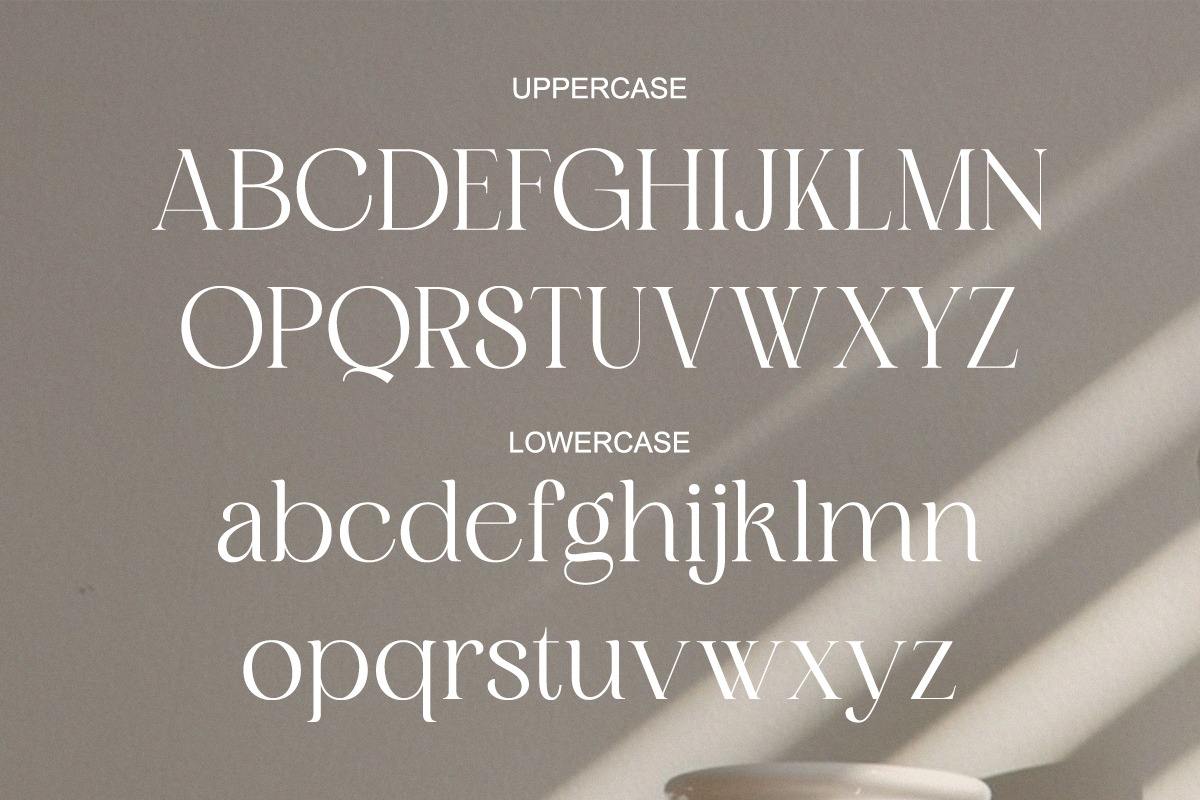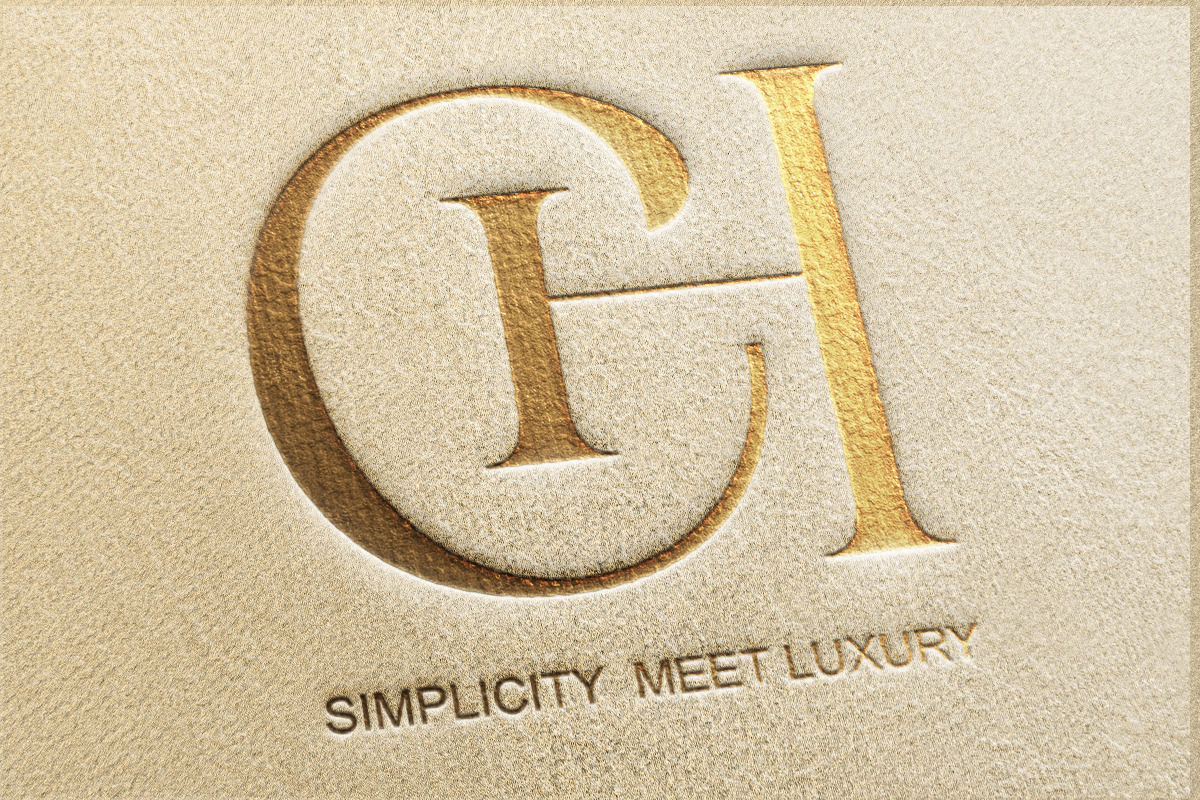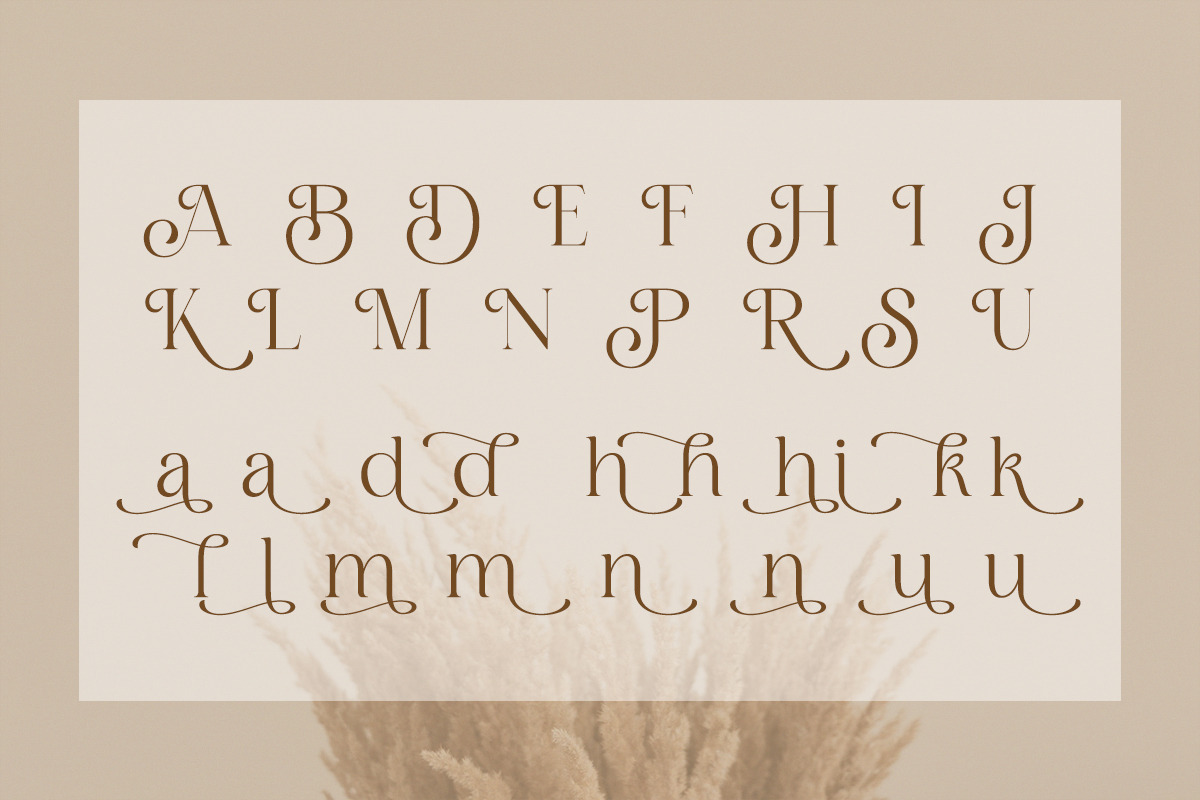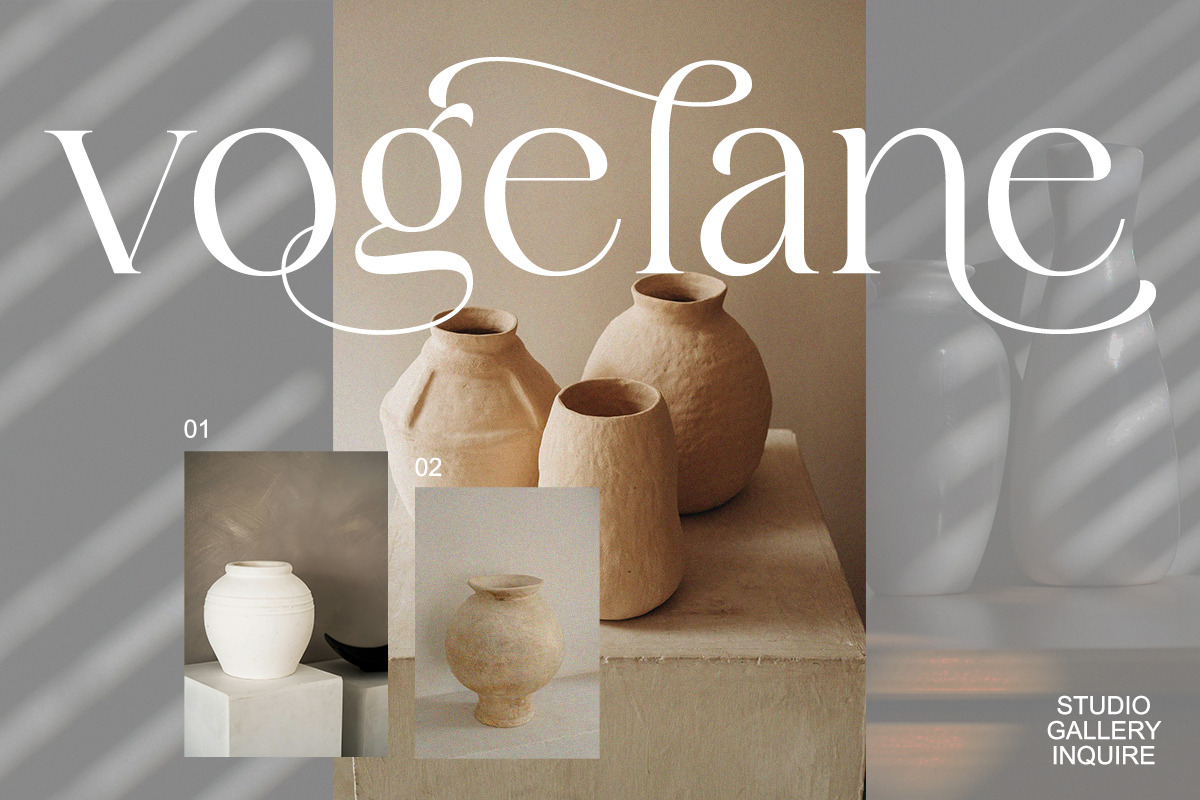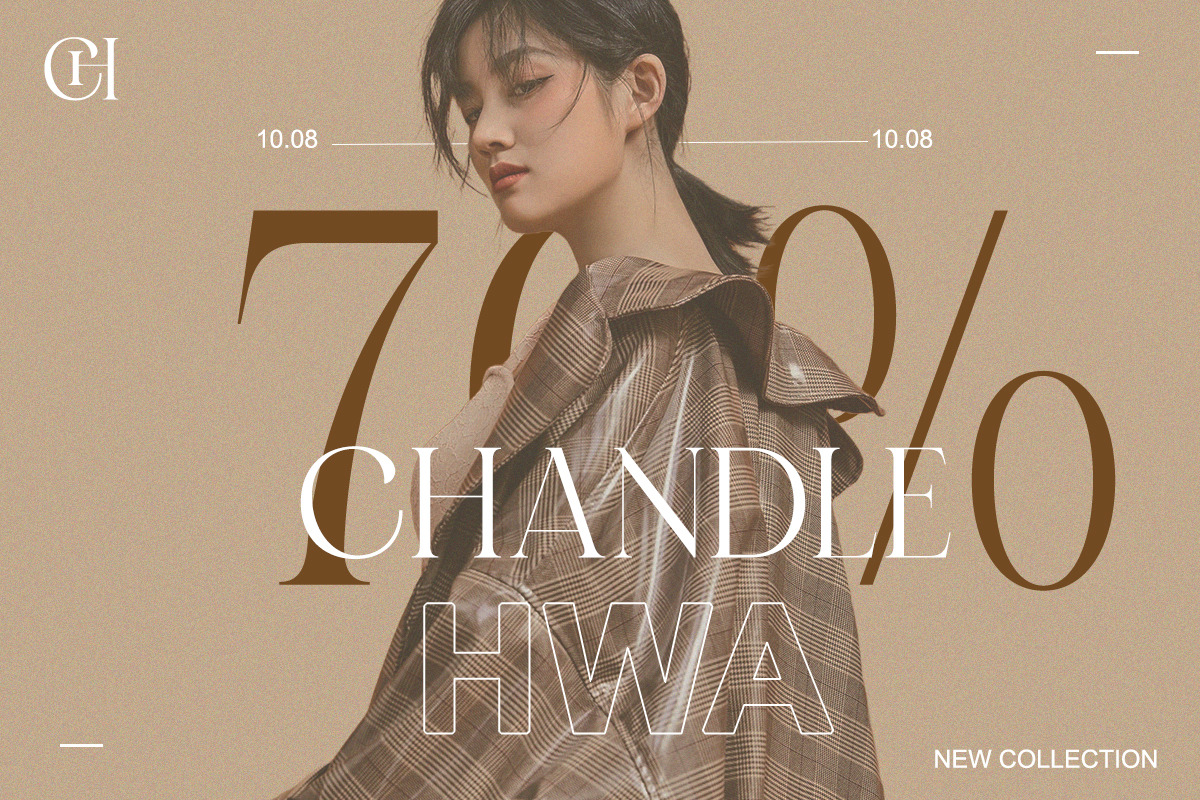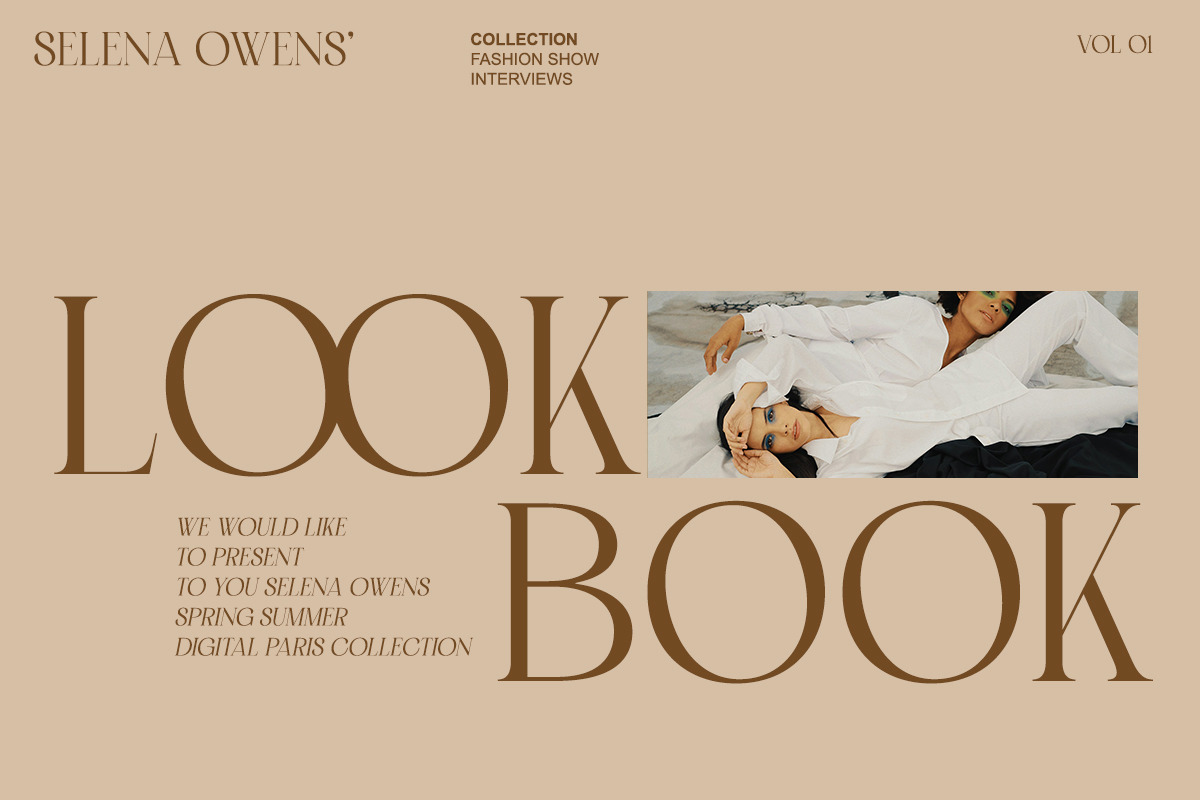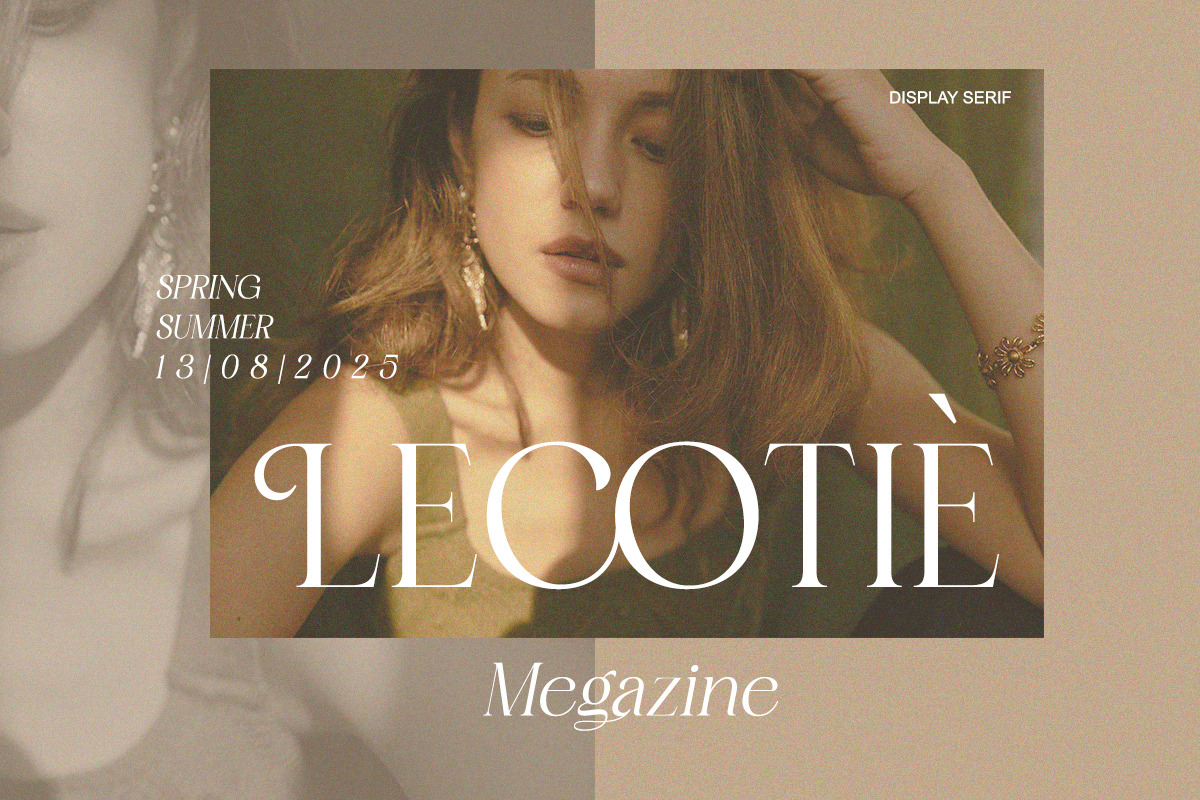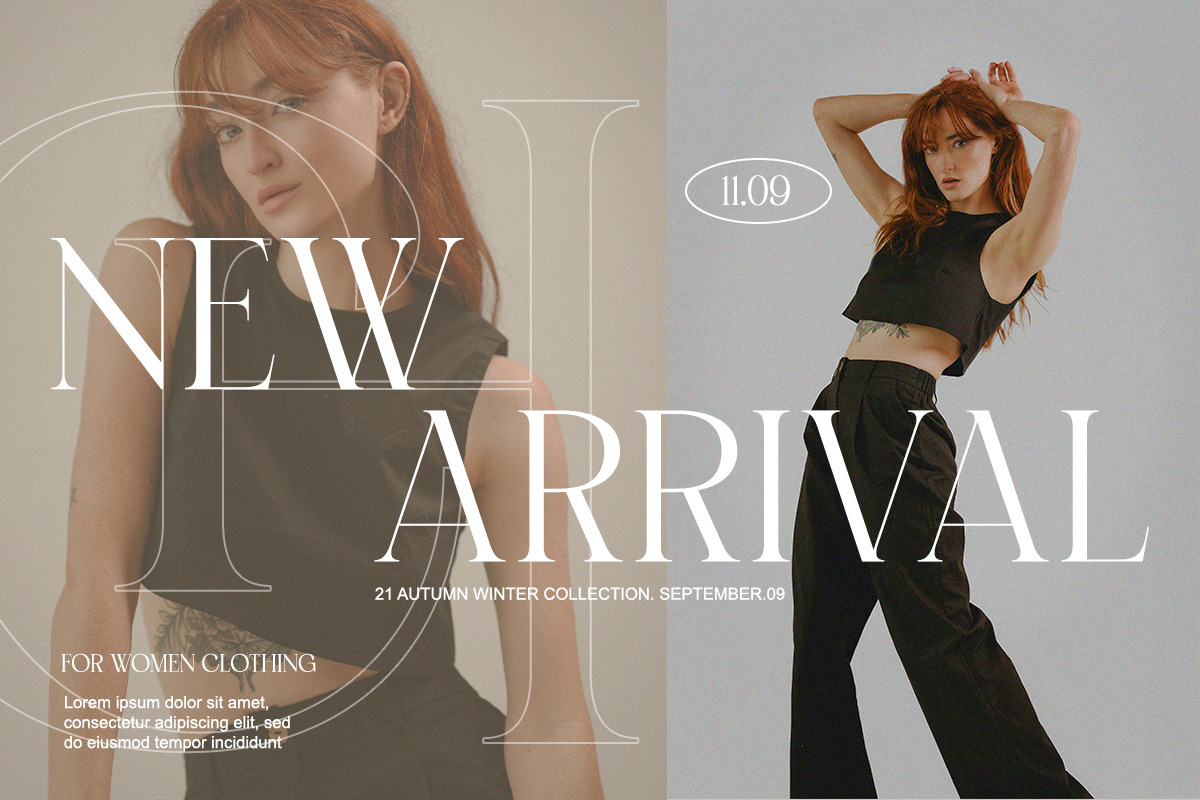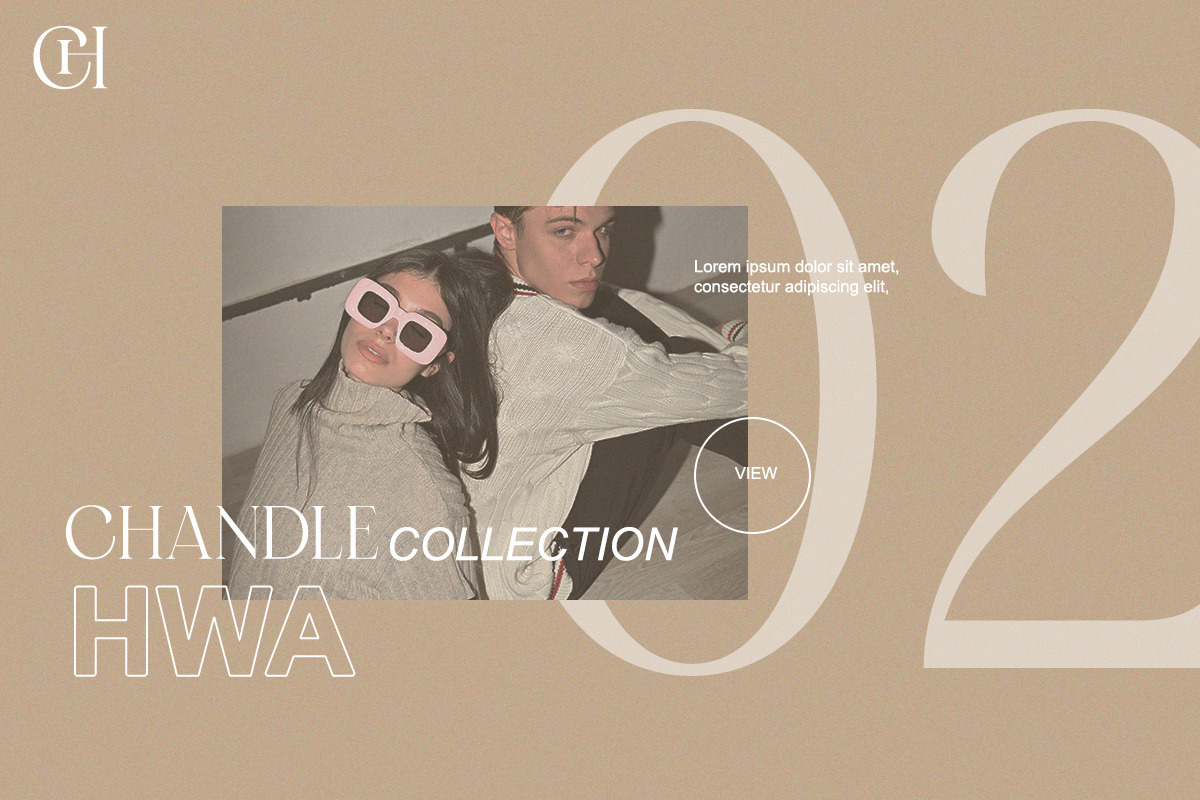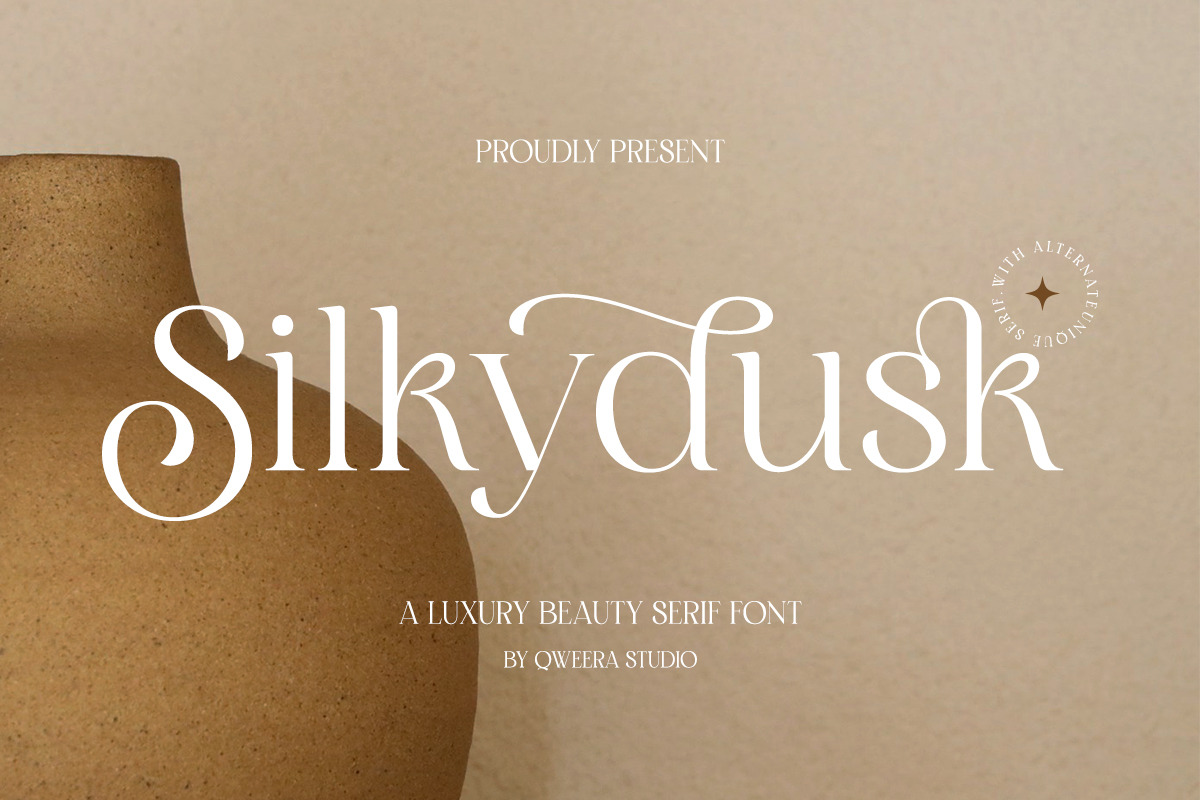
Silkydusk - Luxury Modern Serif Font
Introducing Silkydusk – Luxury Minimal Modern Logo Serif Font, a refined typeface crafted for designers who value elegance and timeless sophistication. With its smooth curves, graceful alternates, and delicate ligatures, Silkydusk embodies a perfect blend of luxury minimalism and modern beauty.
Ideal for branding, fashion magazines, packaging, wedding invitations, and high-end logo designs, Silkydusk delivers versatility and class in every project. Its elegant strokes and balanced proportions make it stand out for both bold headlines and refined body text.
With alternate characters, ligatures, multilingual support, and full professional formats (OTF, TTF, WOFF), Silkydusk empowers you to create designs that resonate with prestige and exclusivity.
Elevate your creative work with Silkydusk, a luxury serif font designed to make a lasting impression.
✨ Font Features
- Regular & Italic
- Alternates & ligatures
🎯 Perfect For
- Luxury branding
- Fashion logos
- Editorial & magazines
- Packaging design
- Wedding invitations
- Minimalist logo marks